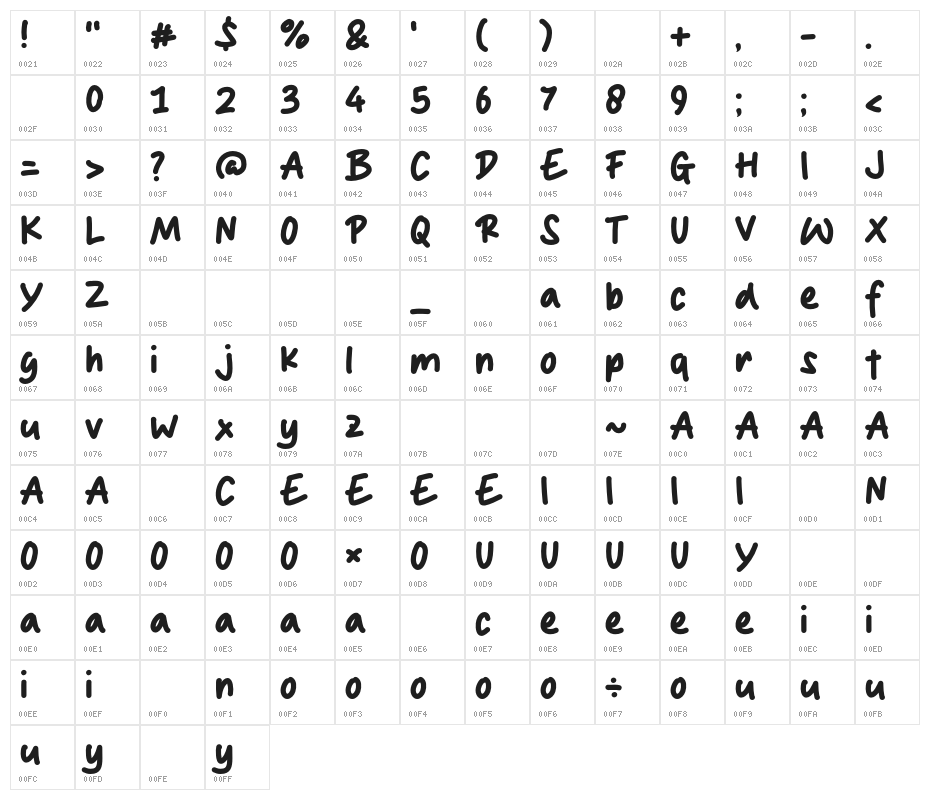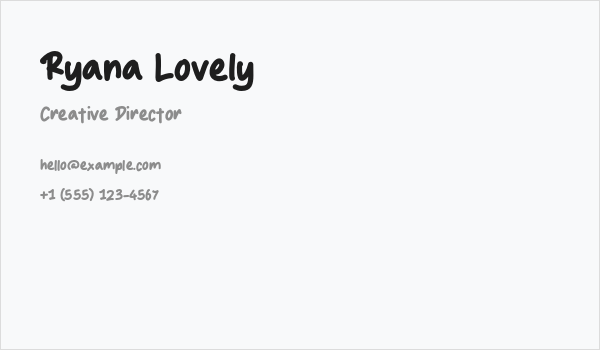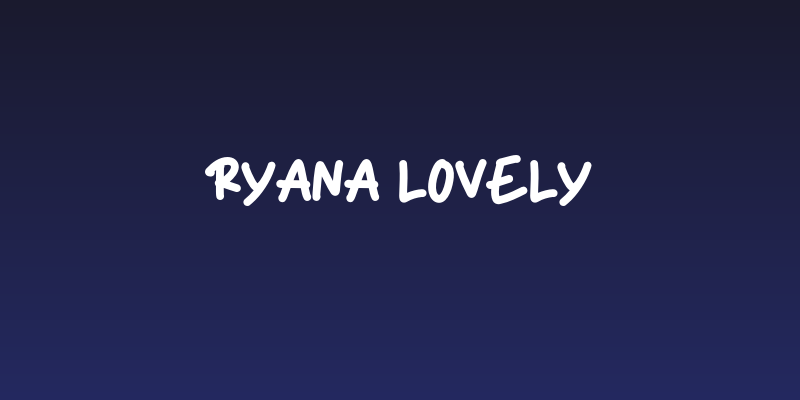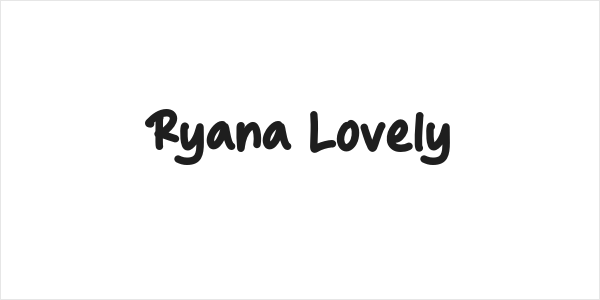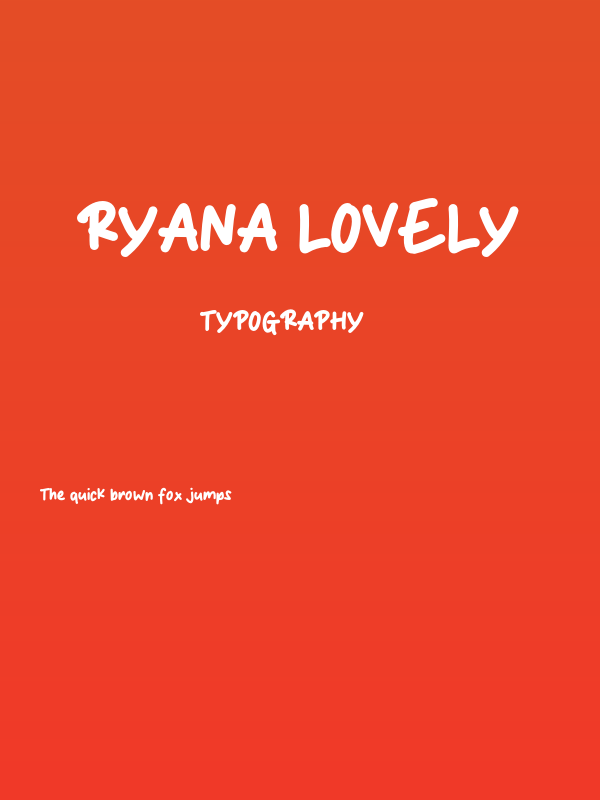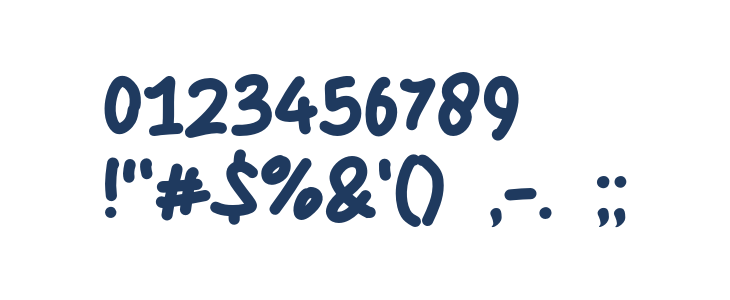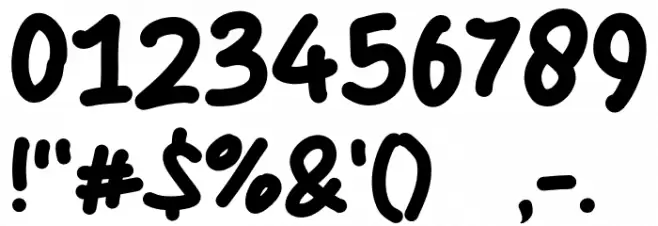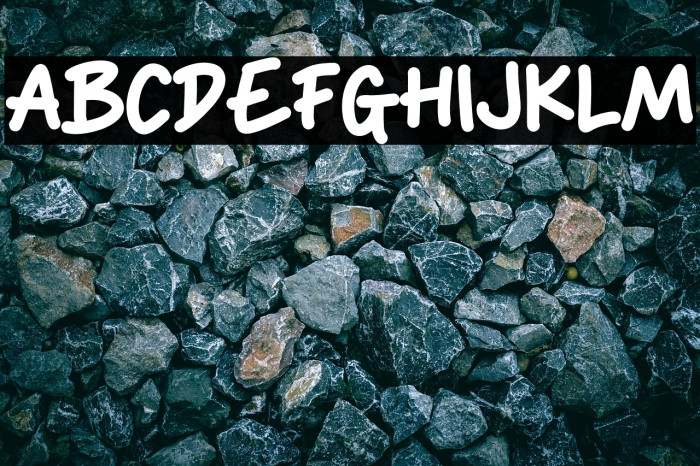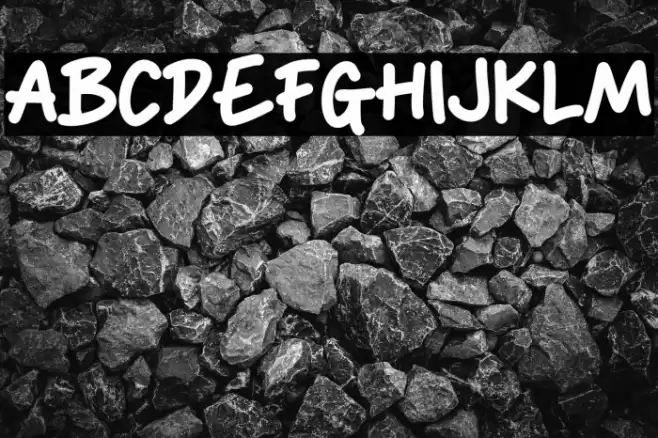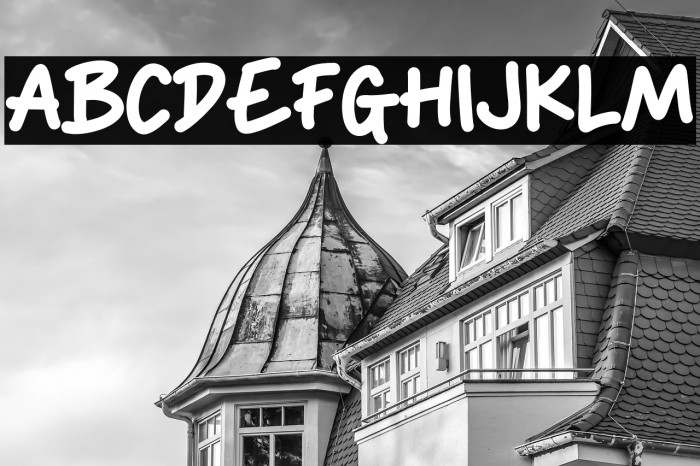
Ryana Lovely Font
Ryana Lovely Description
This font features a playful and bold handwritten style, characterized by its thick strokes and rounded edges. The letters are slightly slanted, giving it a casual and friendly appearance. The uppercase and lowercase letters maintain a consistent style, with a noticeable emphasis on curves and loops. Numbers and special characters are designed to match the overall aesthetic, ensuring a cohesive look. The font's informal and lively nature makes it suitable for projects that aim to convey warmth and approachability.
| Use Case | Logos, Headlines, Informal Invitations |
| Proposed Projects | Ideal for greeting cards, children's books, playful branding, and social media graphics. |